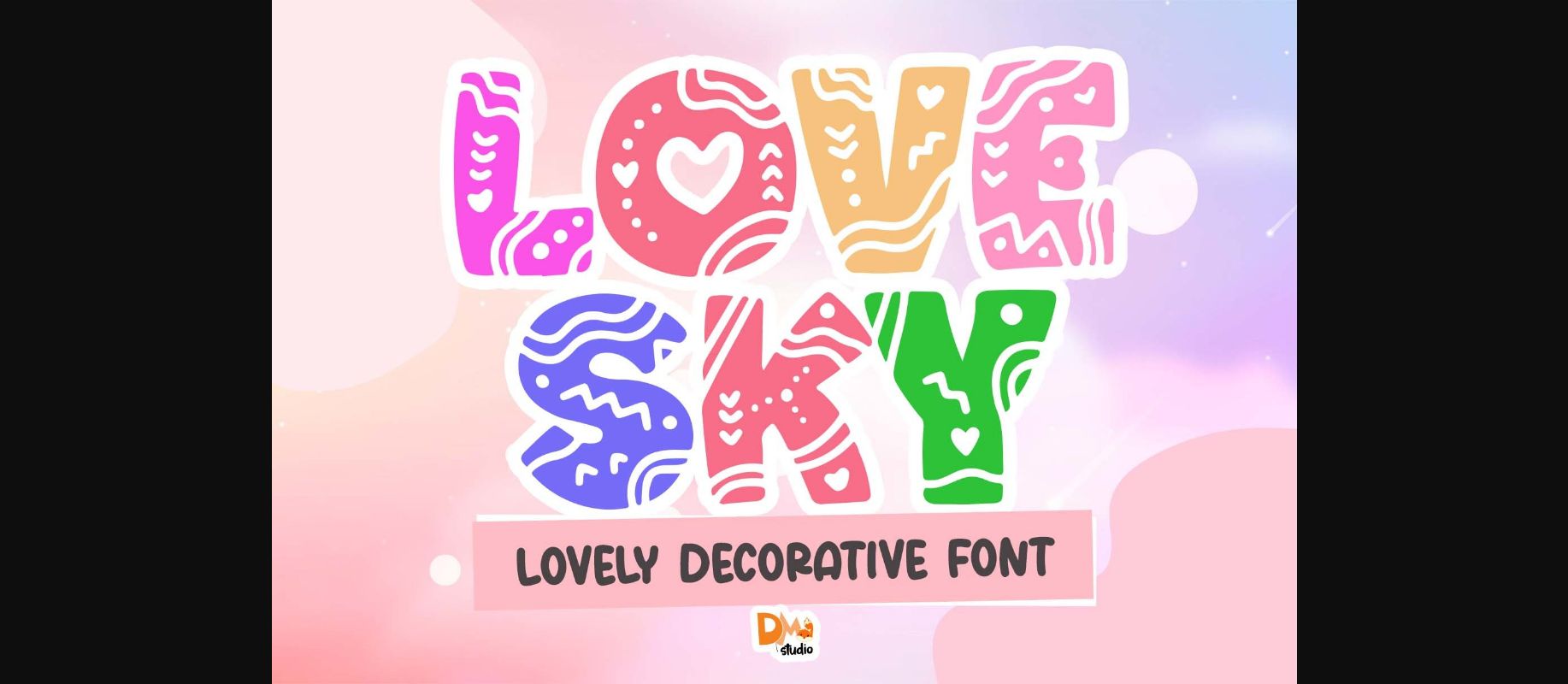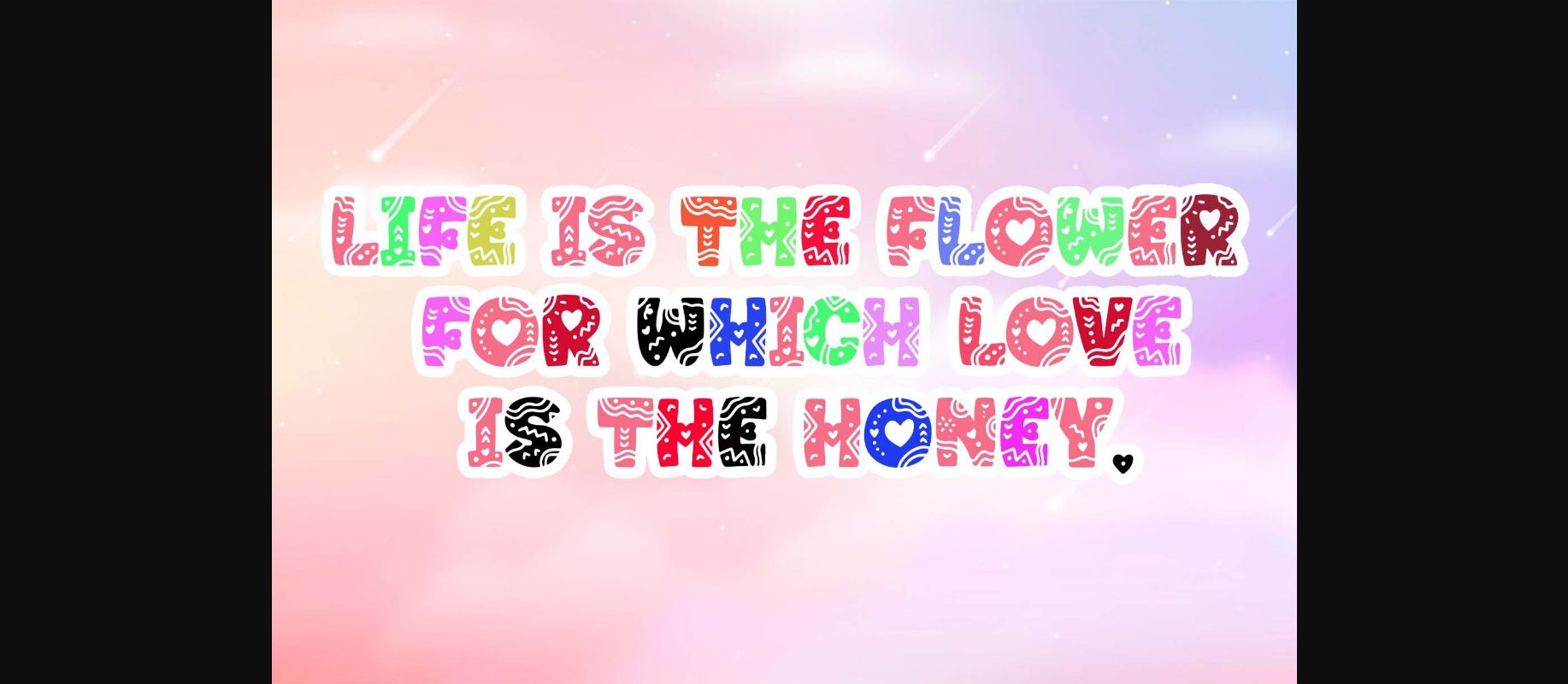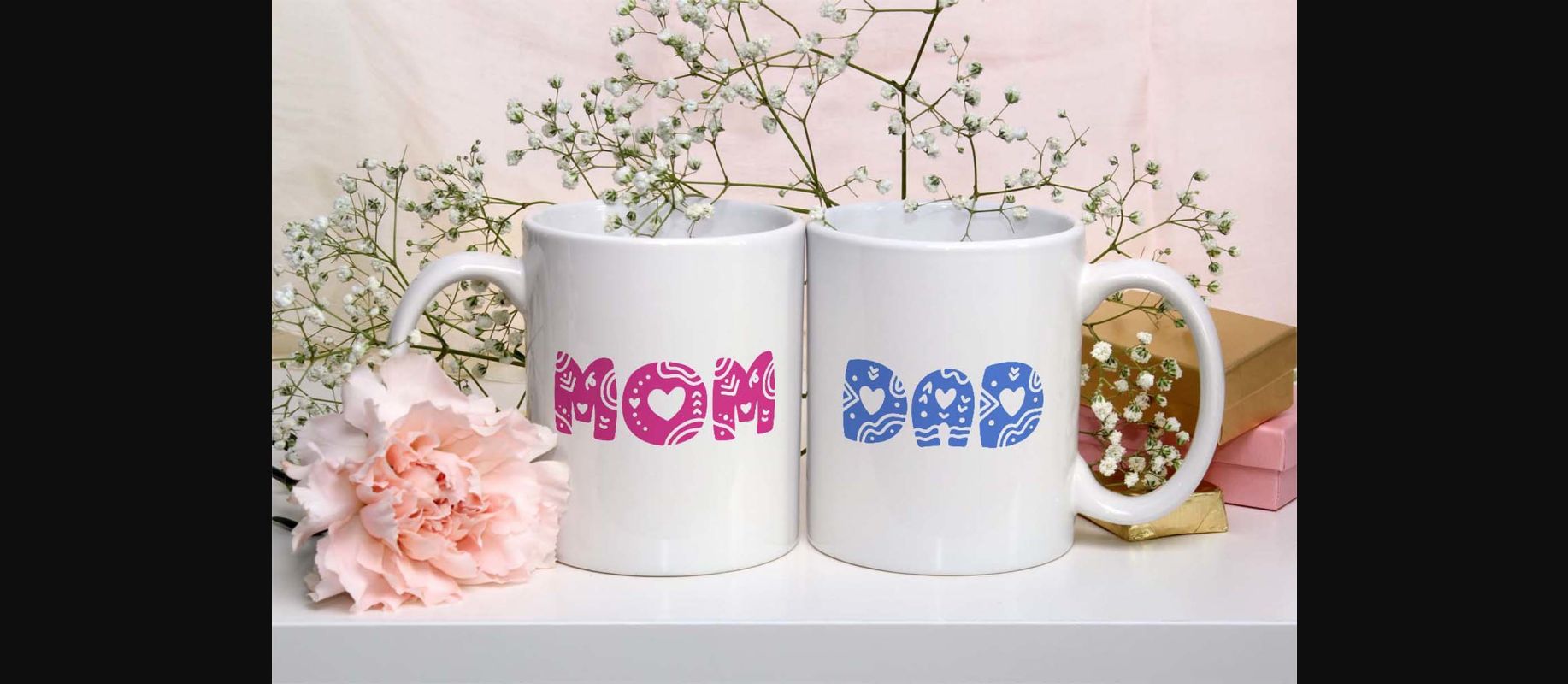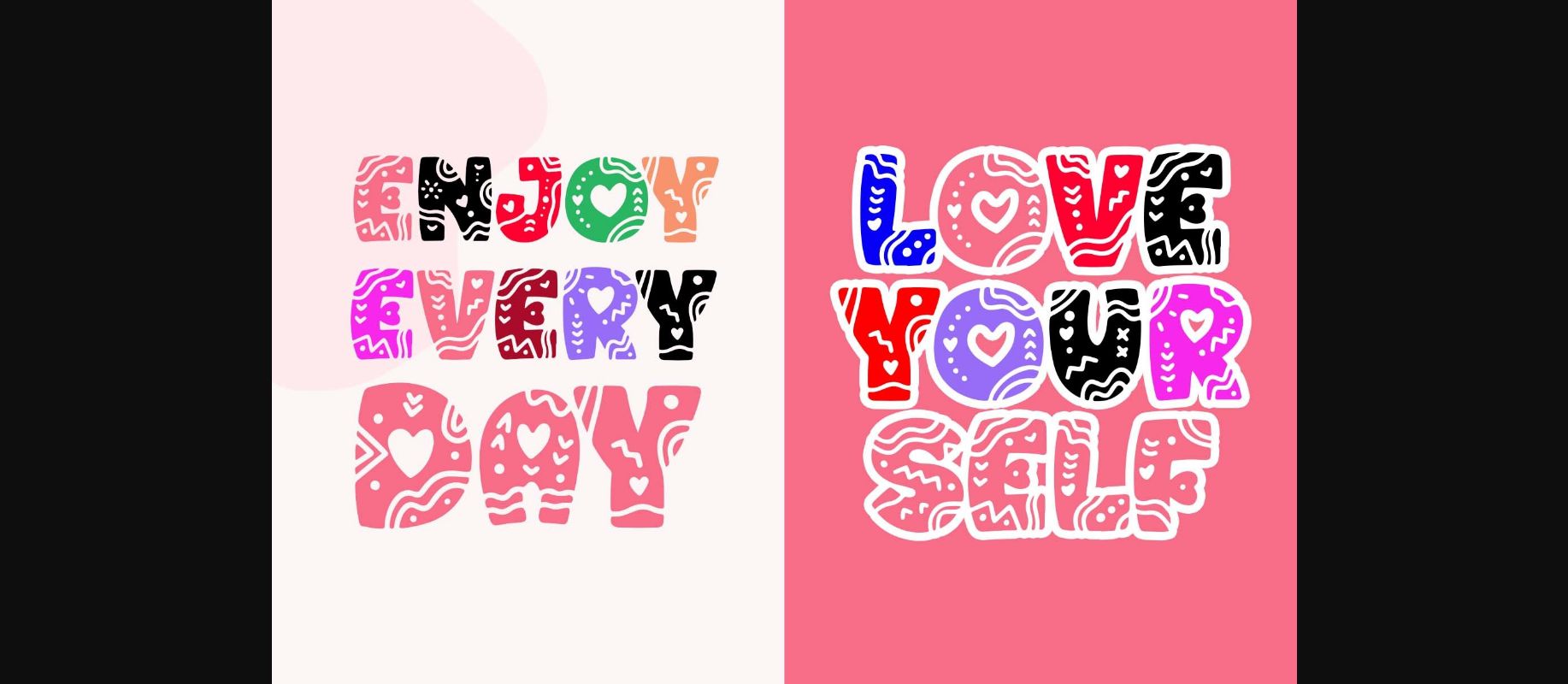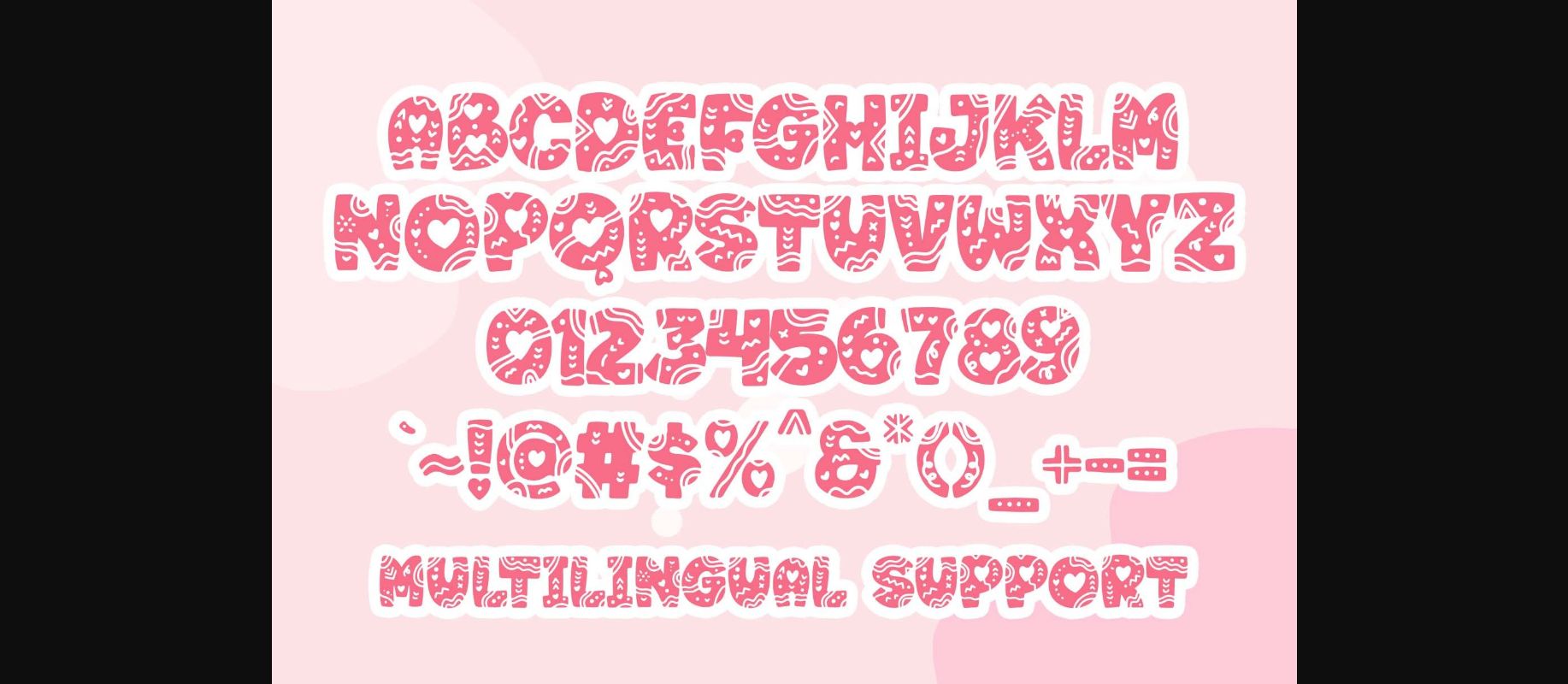
Love Sky Font
About Love Sky Font
Love Sky is a lovely and crafty looking decorative font.
Whether you’re using it for crafts, digital design, presentations, or making greeting cards, this font has the potential to become your favorite go-to font, no matter the occasion!